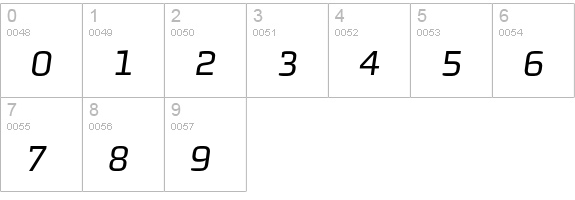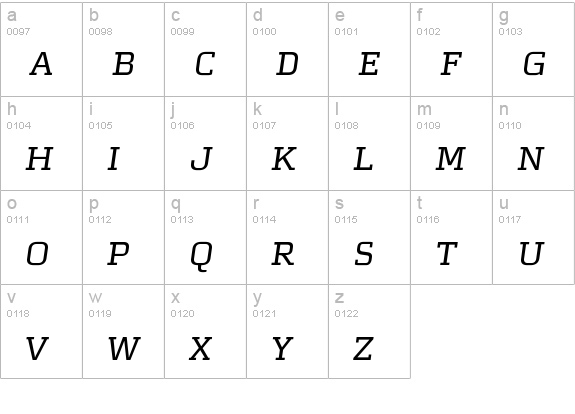
MorganAvec ItalicCaps Font Details
Introducing MorganAvec ItalicCaps font, a sophisticated and elegant typeface that exudes a sense of luxury and refinement. This exquisite font features unique italicized capital letters that add a touch of flair to any design project. Perfect for creating high-end branding materials, invitations, and more, MorganAvec ItalicCaps is sure to make a bold statement. What's even more exciting is that MorganAvec ItalicCaps font is available for free download at FontsMarket.com. Take advantage of this fantastic opportunity to enhance your designs with this stunning typeface without spending a dime. Don't miss out on adding a touch of class to your projects with MorganAvec ItalicCaps font today!